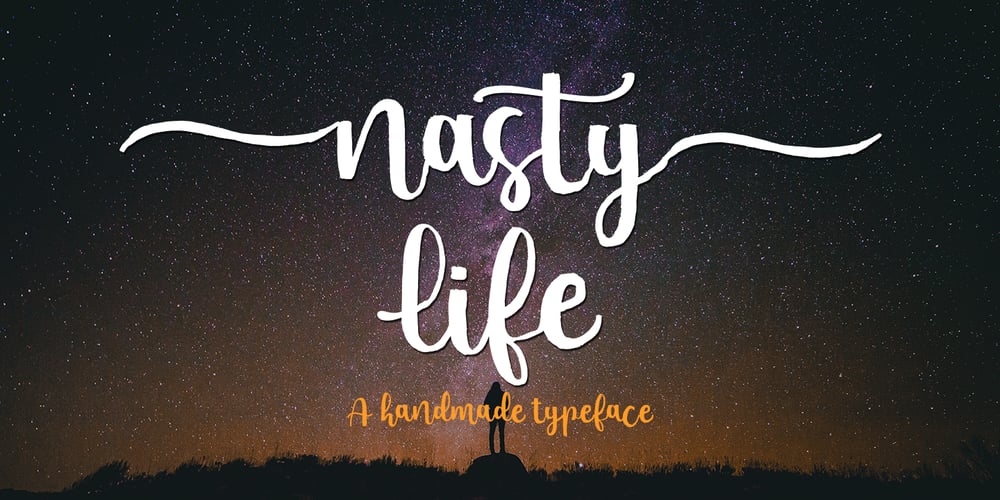
Nasty Life Font Family was designed by Andri Kurniawan and published by Struggle Studio. Nasty Life contains 1 styles and family package options. Nasty Life is a beautiful hand-painted script, which is organic, fun and has a dancing baseline as well as different swashes that can be applied to the beginning and ends of all lowercase.International support for most Western Languages is included. For the separate swashes font, type lowercase a-z for the beginning swashes and end swashes. This fonts can be used for various purposes such as headings, signature, logos, wedding invitation, t-shirts, letterhead, signage, labels, news, posters, badges and more.Thanks so much for looking and please let me know if you have any questions.